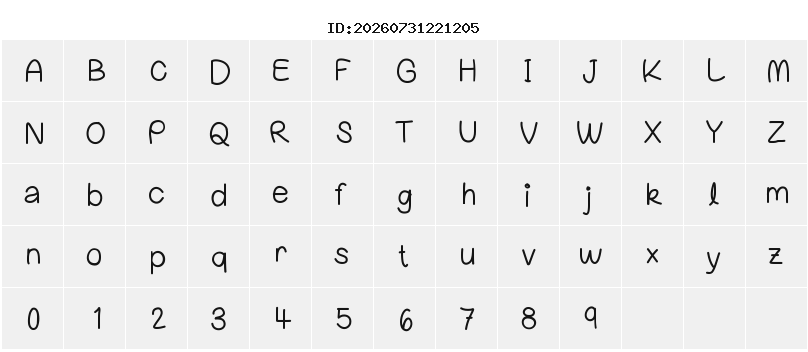
• Font Name: Laurenawrecksus
About Laurenawrecksus.ttf
Laurenawrecksus.ttf is a modern, elegant sans-serif font designed for ultimate readability and visual harmony. Perfect for branding, headlines, web design, and print materials.